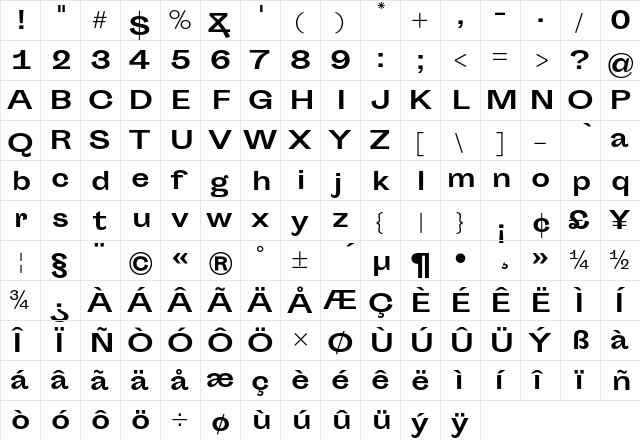
Sporting Grotesque Bold
Design Context for Sporting Grotesque Typeface
Sporting Grotesque has the bold swagger of sports branding: strong, assertive letterforms designed to dominate headlines and jerseys alike. The heavy weight commands attention and anchors typographic hierarchies.
A natural choice for gym brands, fantasy sports, jersey lettering, and action-driven headlines.
Font Pairing: Use alongside a condensed or geometric sans for supporting copy — keep the pairing bold, functional, and free of ornament.
Pro Tip: Use Sporting Grotesque in all-caps headlines where its athletic energy can fully express itself. Pair with a solid, simple sans for supporting text.